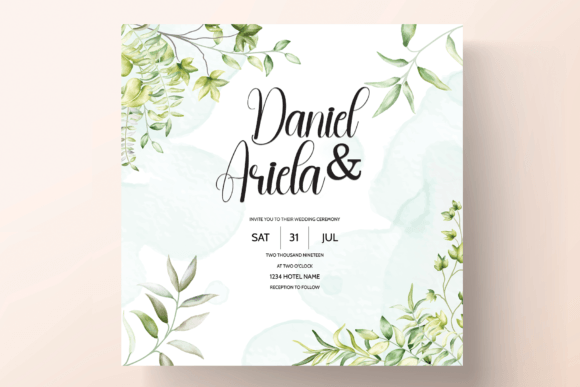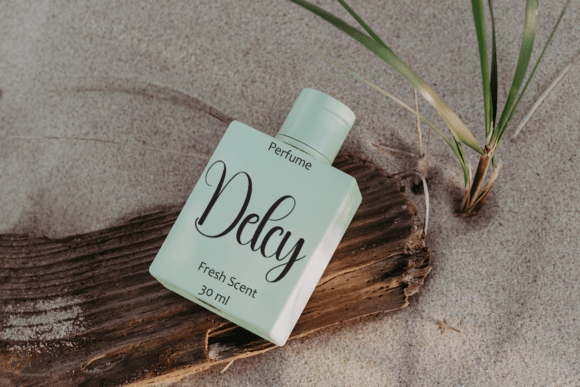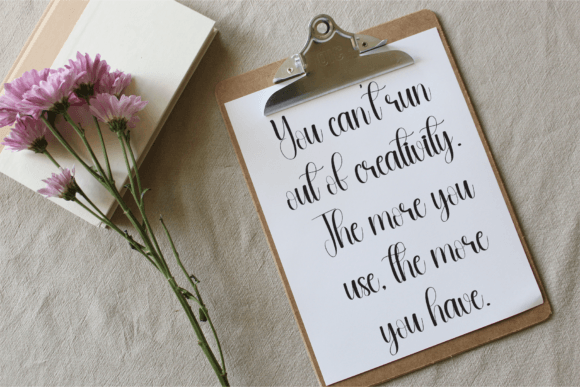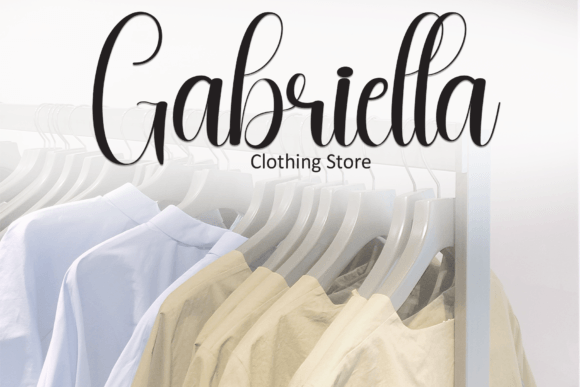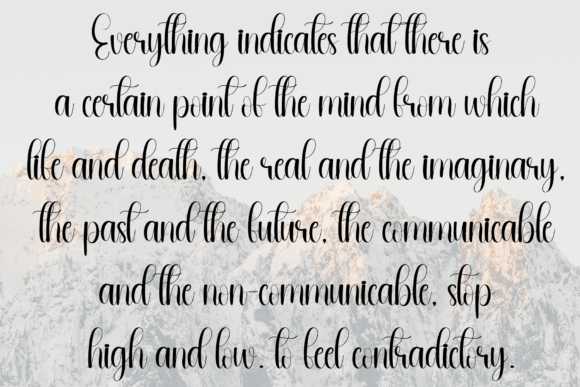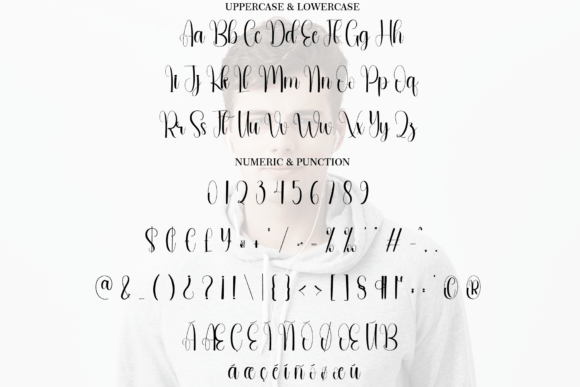
Introducing Charlie Font: The Sweet and Friendly Handwritten Font for Your Design Needs
Are you looking for a font that can add a personal touch to your designs? Look no further than Charlie Font, a sweet and friendly handwritten font that’s perfect for creating beautiful wedding invitations, cards, and more. In this article, we’ll take a closer look at Charlie Font, its features, and how you can use it to elevate your designs.
What is Charlie Font?
Charlie Font is a fresh and casual handwritten font that’s designed to bring a touch of warmth and personality to your designs. With its smooth and flowing lines, Charlie Font is ideal for creating designs that require a personal and human touch. Whether you’re designing wedding invitations, greeting cards, or social media graphics, Charlie Font is the perfect choice.
Key Features of Charlie Font
So, what makes Charlie Font so special? Here are some of its key features:
- Sweet and Friendly Design: Charlie Font has a sweet and friendly design that’s perfect for creating designs that require a personal touch.
- Handwritten Style: Charlie Font has a beautiful handwritten style that’s smooth and flowing, making it perfect for creating designs that require a personal touch.
- Fresh and Casual: Charlie Font has a fresh and casual design that’s perfect for creating modern and trendy designs.
- Easy to Read: Charlie Font is easy to read, making it perfect for creating designs that require a clear and concise message.
Uses of Charlie Font
So, what can you use Charlie Font for? Here are some ideas:
- Wedding Invitations: Charlie Font is perfect for creating beautiful wedding invitations that require a personal touch.
- Greeting Cards: Charlie Font is ideal for creating greeting cards for special occasions such as birthdays, anniversaries, and more.
- Social Media Graphics: Charlie Font can be used to create social media graphics that require a personal touch, such as quotes, sayings, and more.
- Branding and Packaging: Charlie Font can be used for branding and packaging designs that require a personal and human touch.
Tips for Using Charlie Font
Here are some tips for using Charlie Font:
- Pair with Other Fonts: Charlie Font can be paired with other fonts to create a unique and interesting design.
- Use for Headings and Titles: Charlie Font can be used for headings and titles to add a personal touch to your designs.
- Experiment with Colors: Charlie Font can be used with different colors to create a unique and interesting design.
In conclusion, Charlie Font is a sweet and friendly handwritten font that’s perfect for creating beautiful designs that require a personal touch. With its smooth and flowing lines, Charlie Font is ideal for creating wedding invitations, cards, and more. Whether you’re a designer or a crafter, Charlie Font is a great addition to your font collection.